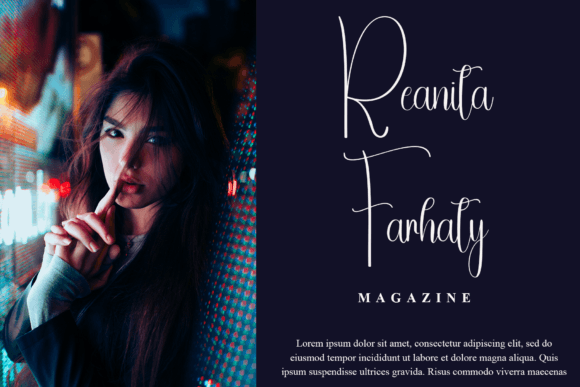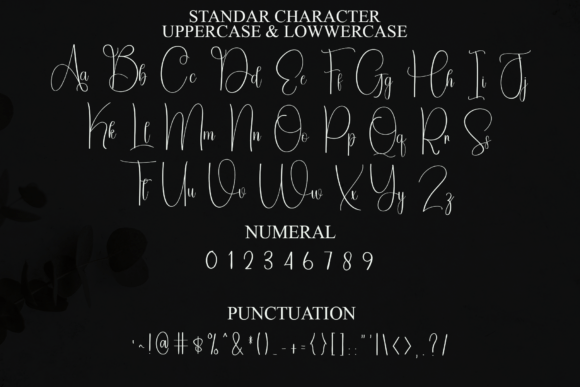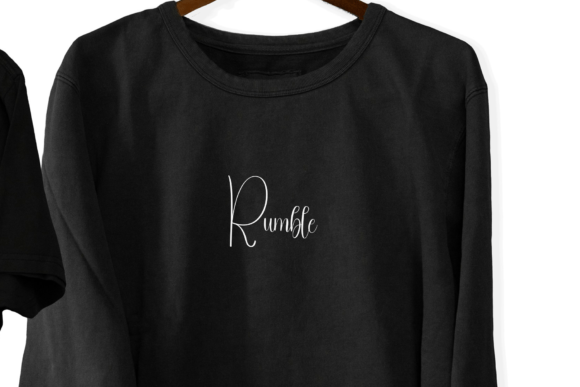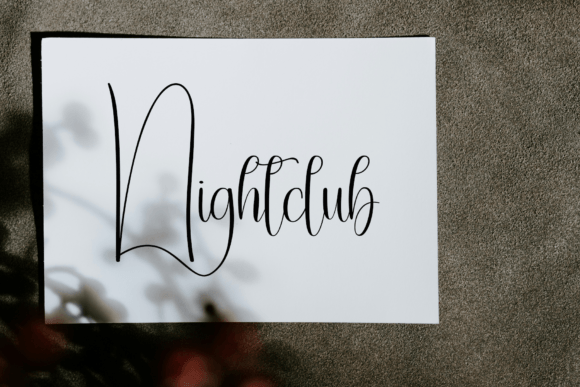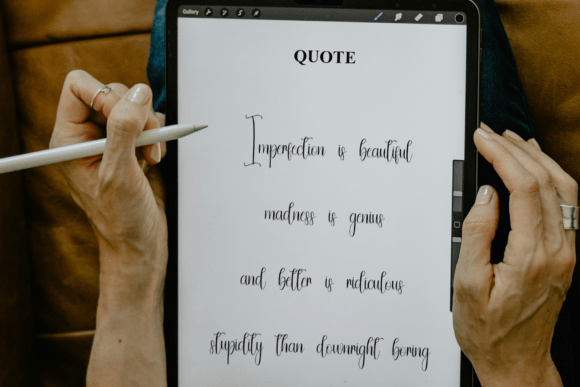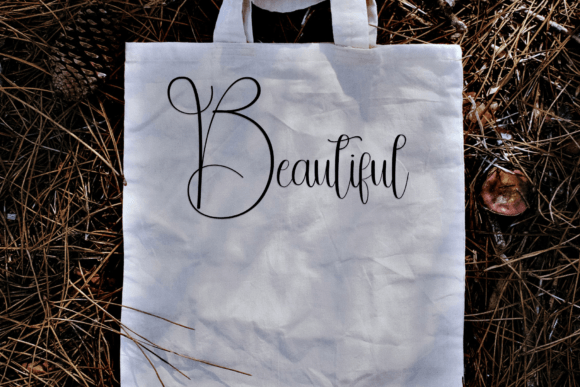
Discover the Elegance of Anatomy Font: Elevate Your Designs with Style
Are you on the hunt for a font that exudes sophistication, elegance, and a touch of modern flair? Look no further than Anatomy Font, a stunning handwritten typeface that is sure to elevate your designs to new heights. With its refined and classy appearance, this beautiful font is perfect for a wide range of creative projects, from logos and branding to invitations, stationery, and beyond.
What Makes Anatomy Font So Special?
Anatomy Font boasts a unique blend of classic charm and contemporary style, making it an incredibly versatile choice for designers and crafters alike. Its elegant, cursive script features flowing lines and delicate flourishes, adding a touch of luxury to any design. Whether you’re creating a wedding invitation, a social media post, or a logo for a high-end brand, this font is sure to make a lasting impression.
Key Features of Anatomy Font
- PUA Encoded: One of the standout features of Anatomy Font is its PUA (Private Use Area) encoding. This means that you can easily access a wide range of glyphs and ligatures, allowing you to add an extra layer of creativity and sophistication to your designs.
- Handwritten Elegance: With its beautiful, handwritten script, Anatomy Font brings a touch of warmth and personality to any design. Its elegant lines and flowing curves make it perfect for creating bespoke designs that stand out from the crowd.
- Modern and Versatile: Despite its classic appearance, Anatomy Font has a distinctly modern feel that makes it suitable for a wide range of applications. From sleek logos and branding to stylish invitations and social media posts, this font is incredibly versatile.
Endless Design Possibilities with Anatomy Font
The possibilities are truly endless when it comes to using Anatomy Font in your designs. Here are just a few ideas to get you started:
- Logos and Branding: Create a lasting impression with a custom logo or brand identity that showcases the elegance and sophistication of Anatomy Font.
- Wedding Designs: Make your wedding invitations, stationery, and decorations truly unforgettable with this beautiful font.
- Social Media Posts: Elevate your social media presence with stylish and engaging posts that feature Anatomy Font.
- Invitations and Stationery: From formal events to casual gatherings, this font is perfect for creating beautiful invitations and stationery that reflect your personal style.
Why Choose Anatomy Font?
With so many fonts on the market, it’s clear that Anatomy Font stands out from the crowd. Here are just a few reasons why designers and crafters are falling in love with this beautiful typeface:
- Elegance and Sophistication: Anatomy Font brings a level of elegance and sophistication to any design, making it perfect for high-end brands and special occasions.
- Versatility: With its modern and versatile design, this font can be used in a wide range of applications, from digital designs to print materials.
- Easy to Use: Thanks to its PUA encoding, Anatomy Font is incredibly easy to use, even for designers who are new to working with glyphs and ligatures.
Anatomy Font is a truly exceptional typeface that offers a unique blend of elegance, sophistication, and versatility. Whether you’re a designer, crafter, or simply someone who appreciates beautiful typography, this font is sure to inspire your creativity and elevate your designs to new heights. With its PUA encoding, handwritten elegance, and modern flair, Anatomy Font is the perfect choice for anyone looking to add a touch of luxury to their designs.